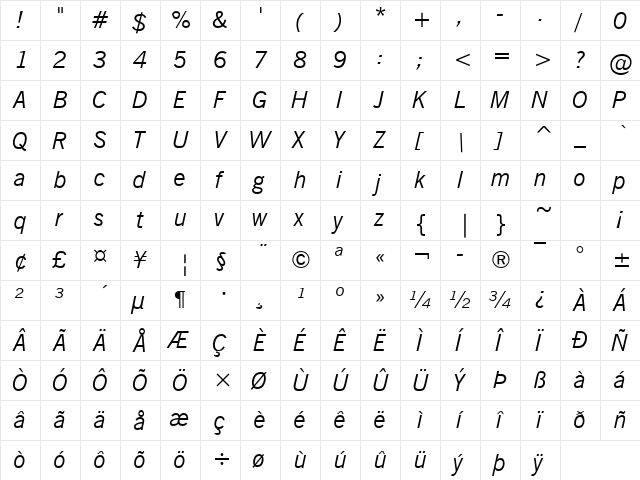
Reporter Italic
Design Context for Reporter Typeface
Reporter offers clean, dependable letterforms without strong stylistic allegiance, making it a practical choice for designers who need flexibility. The slanted form adds forward momentum and visual energy.